Typography is one of the most powerful tools in design. The right font can instantly change the mood of a project, make your text stand out, and communicate a strong message. Whether you’re working on a YouTube thumbnail, designing an Instagram post, creating an eye-catching poster, or preparing a branding project, cool fonts can help you make a bold statement.
Default system fonts often feel too plain and uninspired for modern creative work. That’s why having access to a variety of free cool fonts is essential for every designer. These fonts go beyond the ordinary — they are bold, stylish, and full of character, making your designs more memorable and professional.
In this roundup, we’ve collected a versatile selection of free cool fonts that you can download and start using right away. The collection includes:
- Elegant serif fonts for classic, sophisticated looks.
- Clean sans-serif fonts for minimal and modern styles.
- Bold decorative fonts that bring energy and impact.
- Retro-inspired typefaces with nostalgic charm.
- Playful and artistic fonts that showcase creativity.
1. Шрифт Batuphat Script
Batuphat Script is a striking bold typeface available in two versatile styles — Regular and Extrude — making it ideal for eye-catching layered typography. Designed by Debut Studio, this free font is perfect for posters, art prints, t-shirt graphics, social media visuals, and more. It’s free for both personal and commercial use, and comes in easy-to-use OTF format — ready to download and elevate your next creative project.
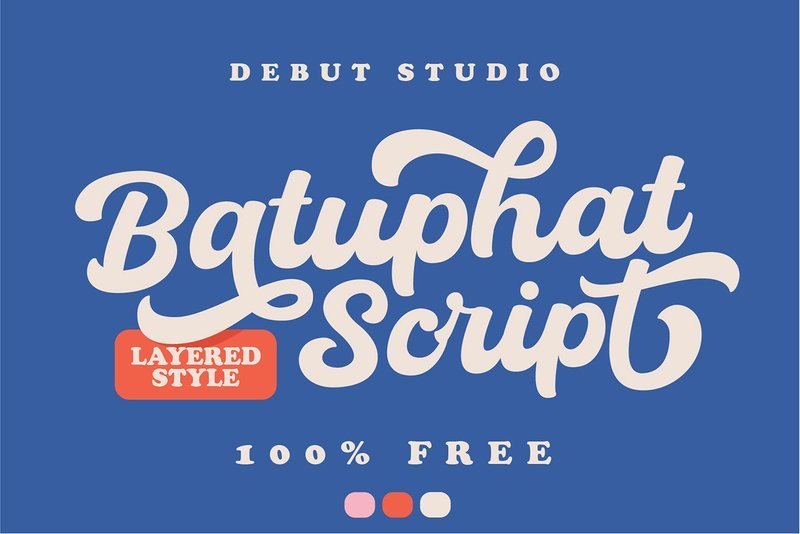
2. The Night Watch
The Night Watch, created by design agency Obys, is a stunning free serif font with a distinctive style. Inspired by and named after Rembrandt van Rijn’s famous 1642 painting The Night Watch, this uppercase-only typeface is perfect for crafting bold and elegant headlines, short texts, branding, and logos. It’s available for free download as a TTF file.
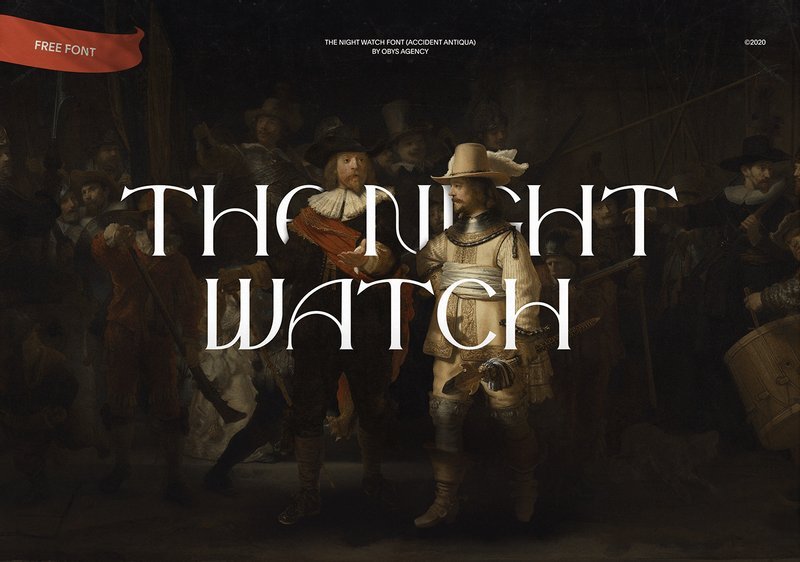
3. Lansdowne Decorative
Lansdowne takes its cues from classic vintage advertising typography, blending nostalgic charm with clean, modern lines. This versatile decorative typeface, designed by Twicolabs Fontdation, comes in two styles — Regular and Slanted — and is available for free download in both TTF and OTF formats.
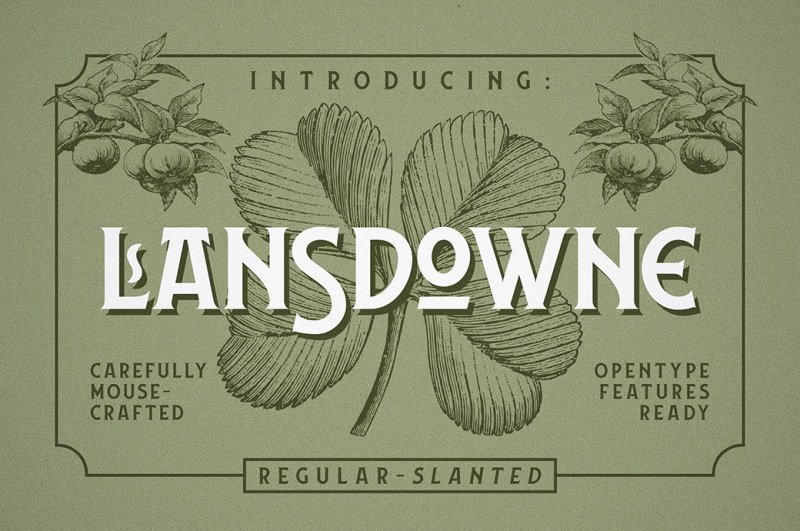
4. Lettown Hills Cool Display
Lettown Hills is a playful free font featuring charming swirly letterforms. Fonts like this are perfect for adding a creative touch to branding, advertising, and eye-catching headlines. Designed by Senzana, Lettown Hills is available for free download in OTF format.
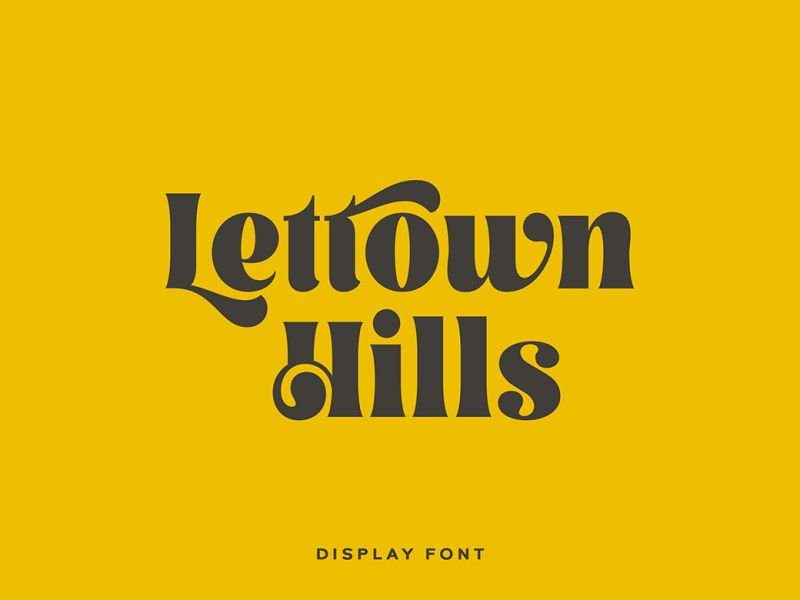
5. Alégra Minimal Sans Serif
Alégra is a free, modern minimalist sans-serif font characterized by smooth, flowing curves. Designed by Black Font Labs, this distinctive typeface combines a stylish yet formal futuristic aesthetic. The download includes both TTF and OTF font files.
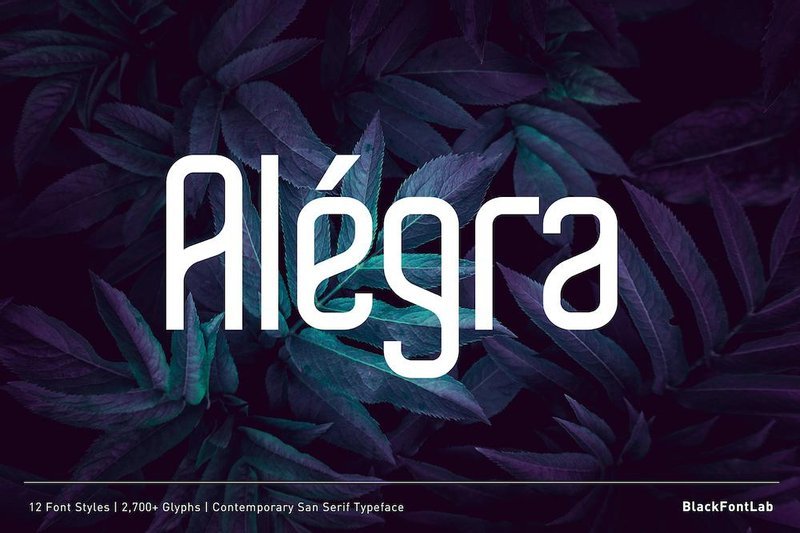
6. Misto Font – (Cyrillic and Latin)
Misto, created by Katerina Koroleva, is a free font featuring distinctively structured letterforms that make it an excellent choice for headlines, branding, websites, packaging, and posters. The font supports both Cyrillic and Latin alphabets, and comes available for download in TTF, OTF, and web font formats.
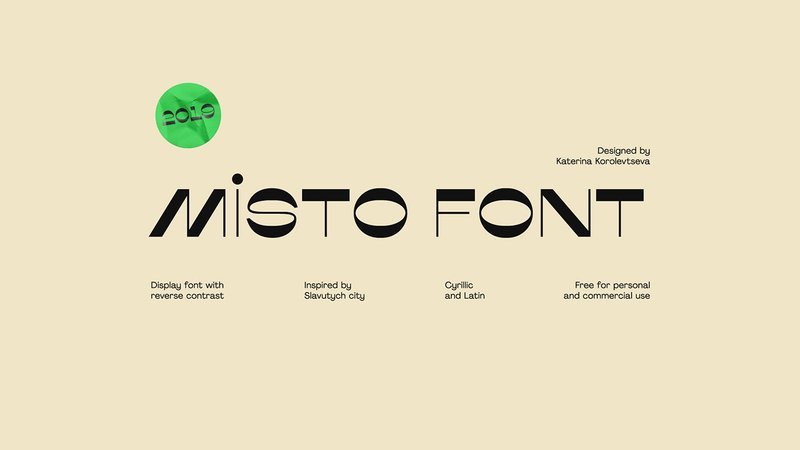
7. Little Bird font is a free vintage typeface
Little Birds showcases a modern vintage letterstyle, enriched with elegant ligatures that add flair and sophistication to your designs. Released by Senzana, this charming vintage script font is available for free download in OTF, TTF, EOT, and WOFF formats.
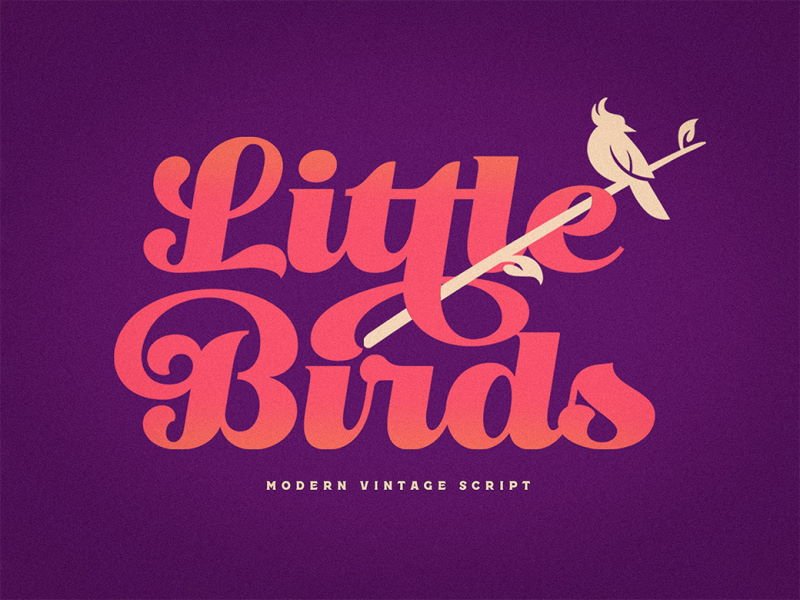
8. Rokurou Display Font
Rokurou Display, crafted by Damelev Studio, is a refined serif font featuring contrasting letterforms that evoke a sense of elegance and luxury. Perfect for a wide range of creative projects, this sophisticated typeface is available for free download in both OTF and TTF formats.
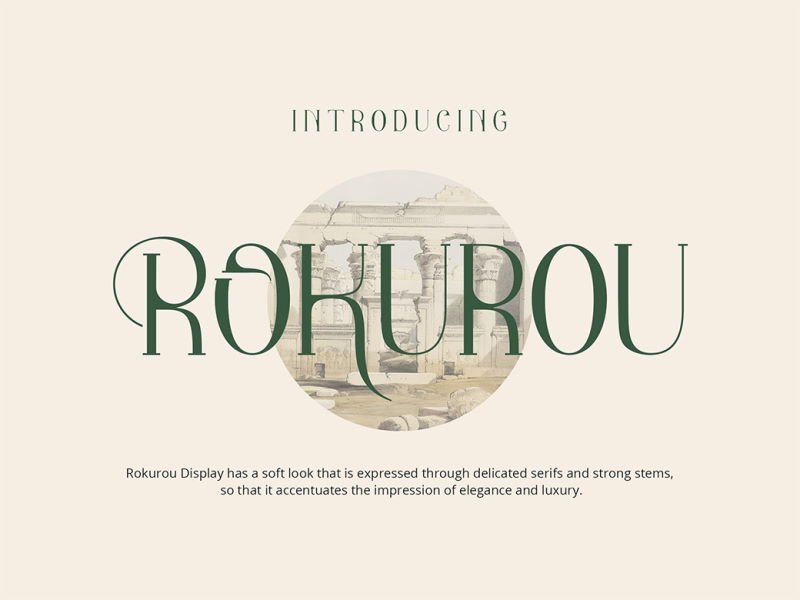
9. Fungis Grotesque
Fungis, designed by Milena Leimig, is a contemporary sans-serif font family available in three weights: Regular, Bold, and Heavy. Its distinctive curves and cut-out bowls in select letters give it a fresh and unique personality. Free for both personal and commercial use, Fungis comes in multiple formats including TTF, OTF, WOFF, and WOFF2.
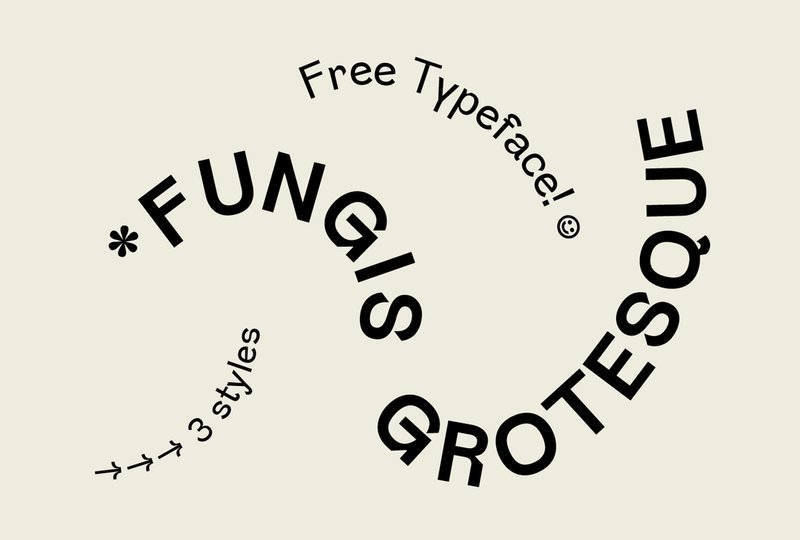
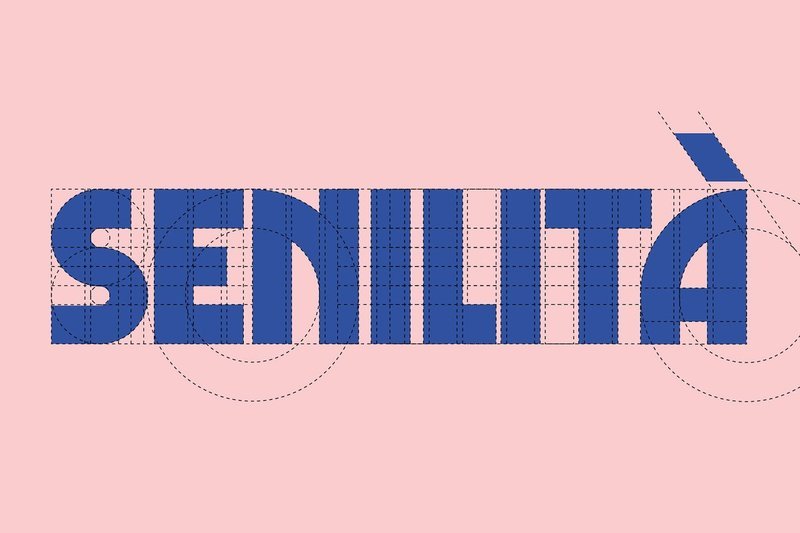
26. Silverfake Slab Serif
A contemporary slab serif font, Silverlake by Alexey Frolov features wide letterforms that will make your headlines stand out. The font is capital only but includes some alternate characters. Available for free download in TTF and OTF formats.